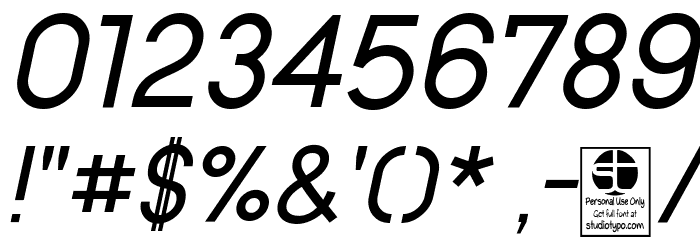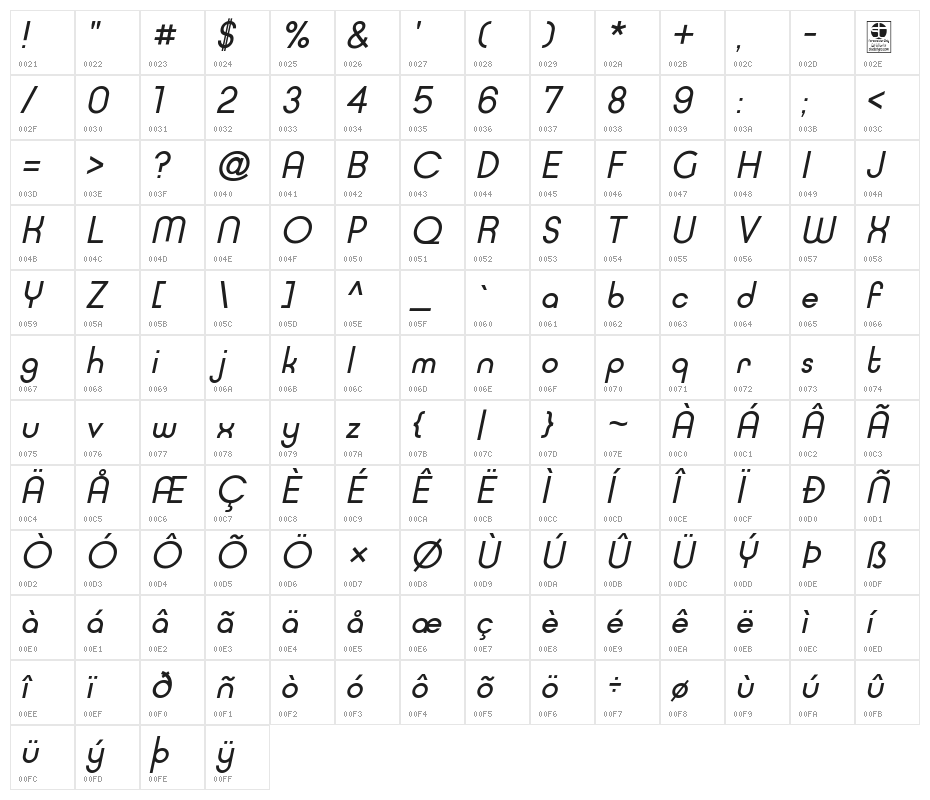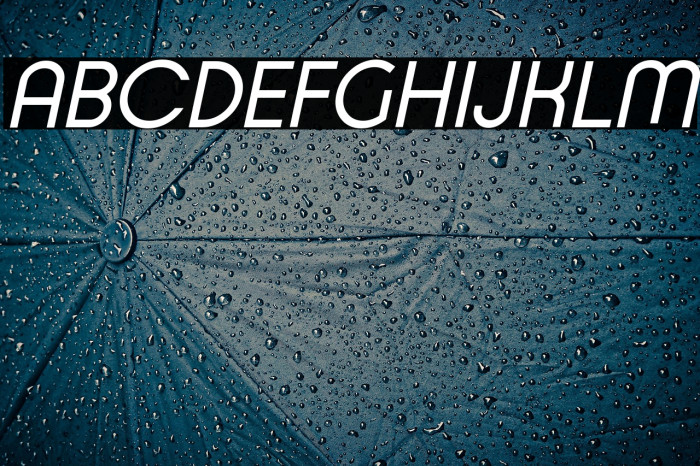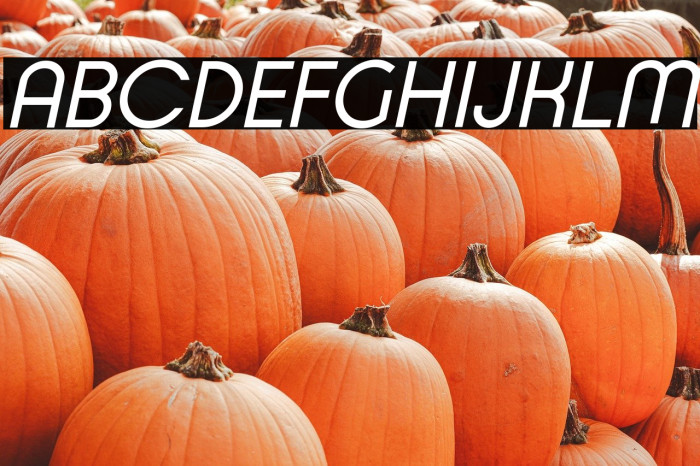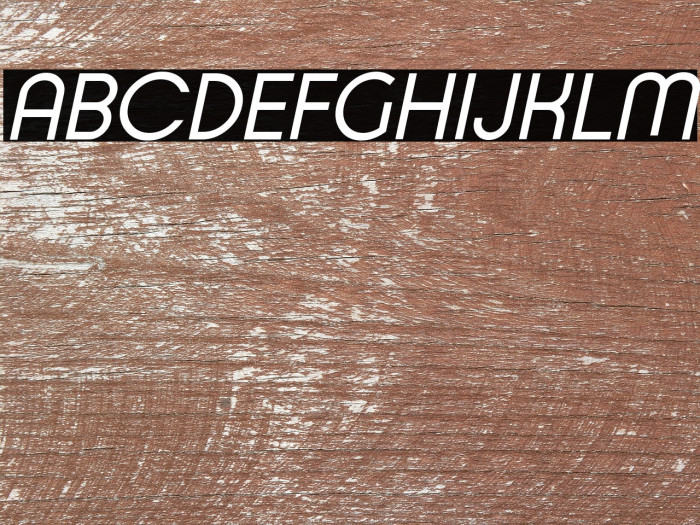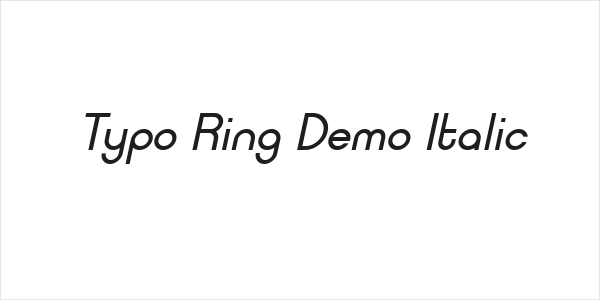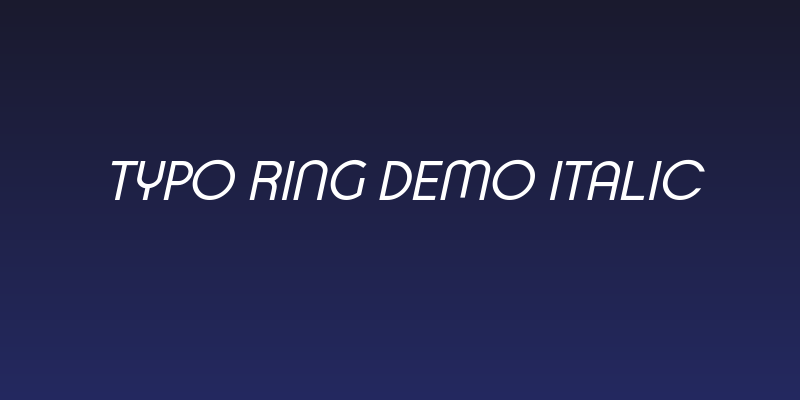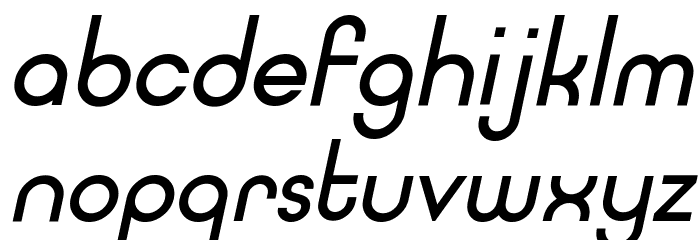
Typo Ring Demo Italic Font
Typo Ring Demo Italic Description
This font features a sleek, modern design with a distinct italic slant, giving it a dynamic and forward-moving appearance. The characters are crafted with smooth curves and a consistent stroke width, contributing to a clean and polished look. The uppercase and lowercase letters maintain a harmonious balance, while the numerals and special characters are designed to complement the overall aesthetic. The font's style is versatile, making it suitable for a variety of design applications.
| Proposed Projects | Ideal for branding, advertising, and editorial design projects that require a contemporary and stylish touch. |